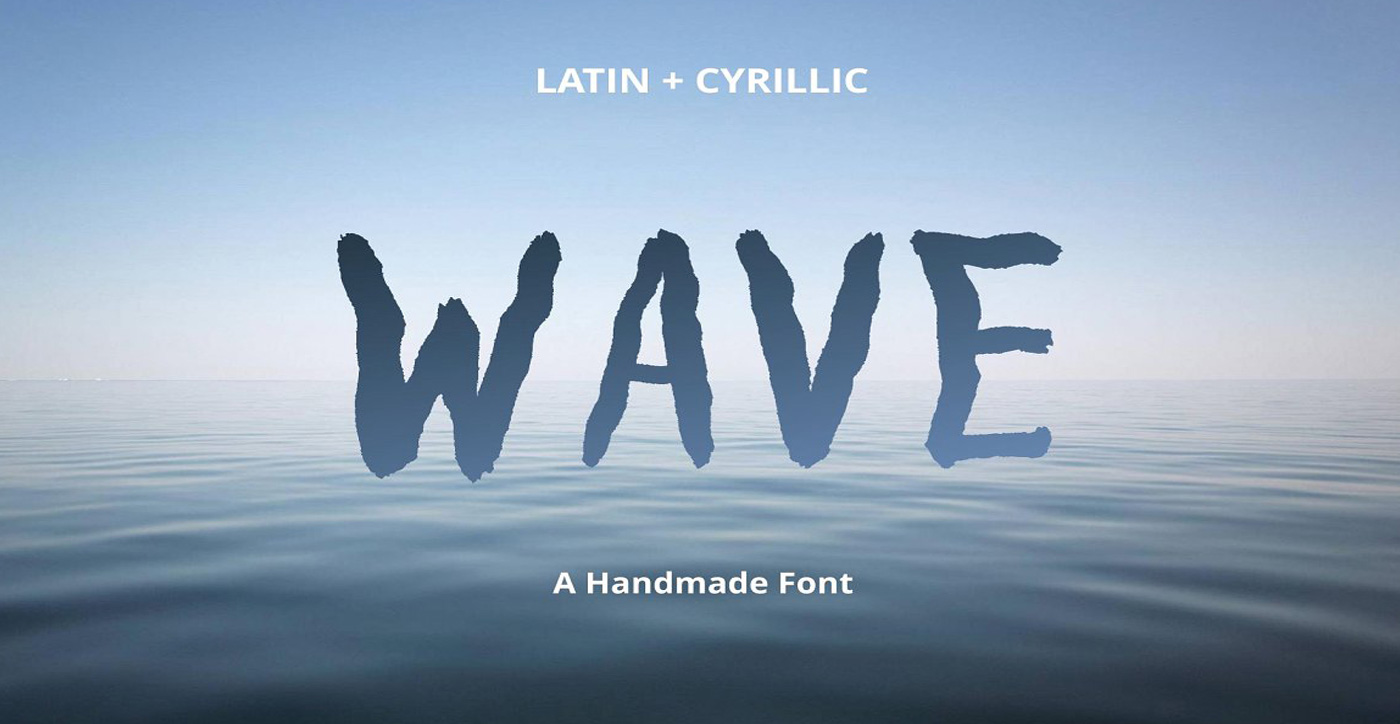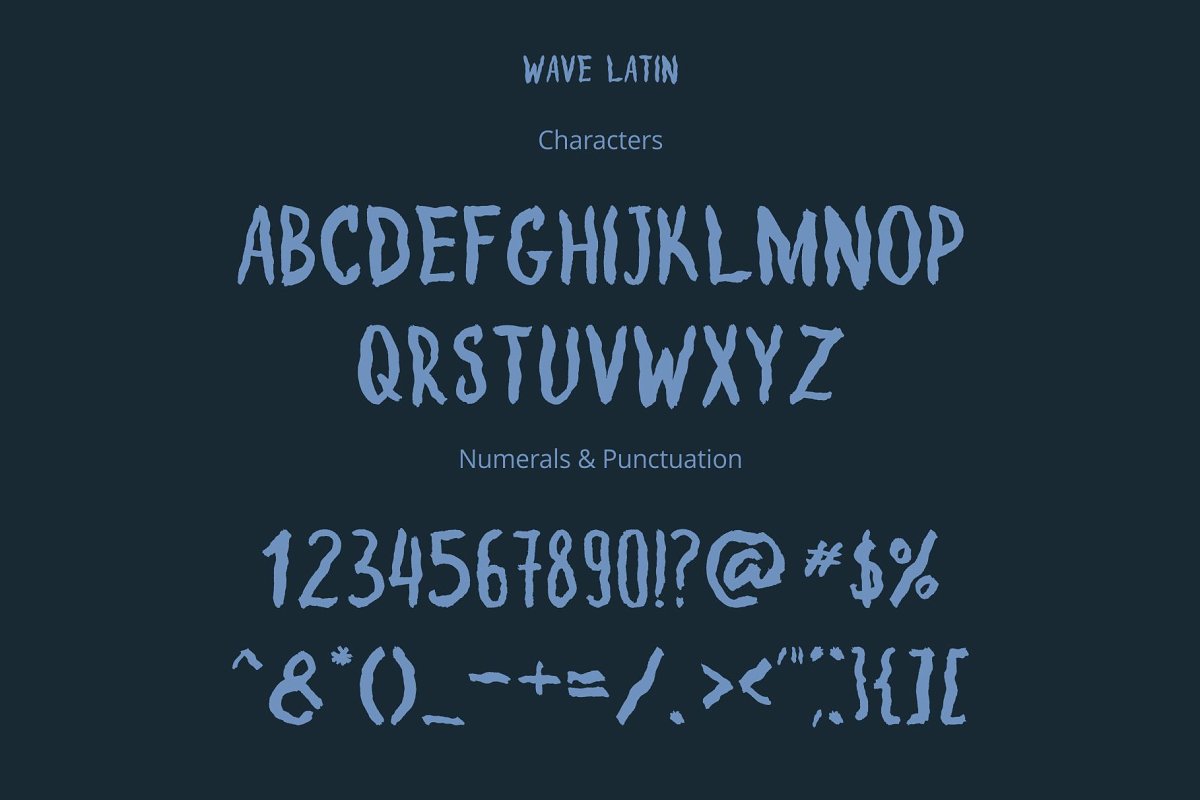
WAVE with latin and cyrillic letters! WAVE font contains latin and cyrillic letter sets, numerals and punctuation. This font work nicely for all sorts of things including t-shirt design, typographic art, social media images and so much more!
Font features: Standard characters A-Z, 0-9, and punctuation for the Latin Basic and Western European set, Cyrillic А-Я set.